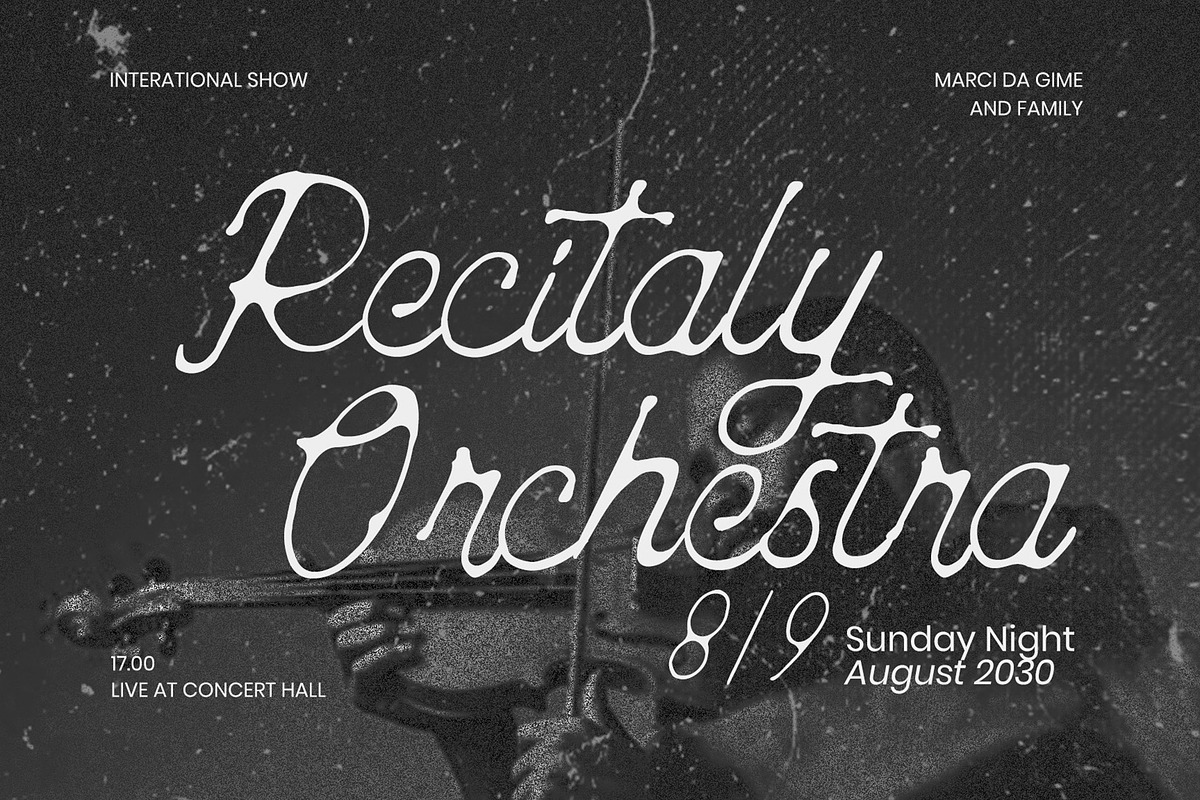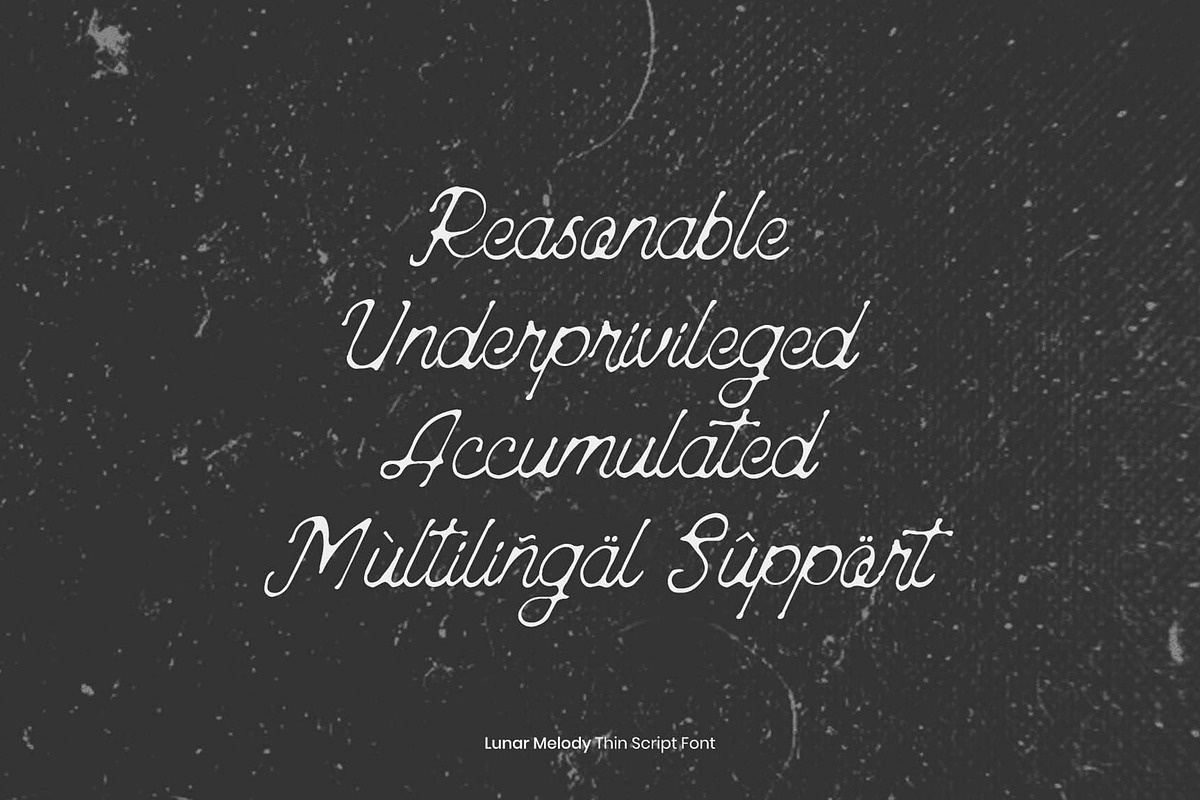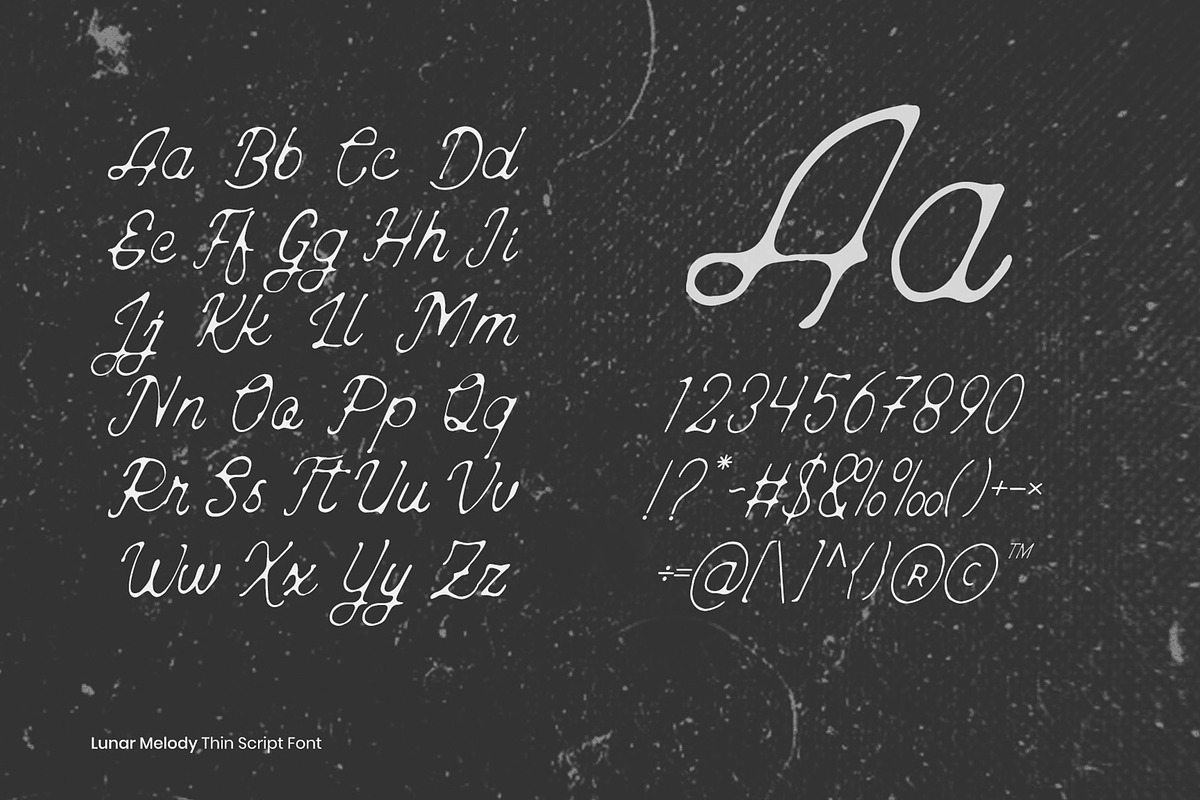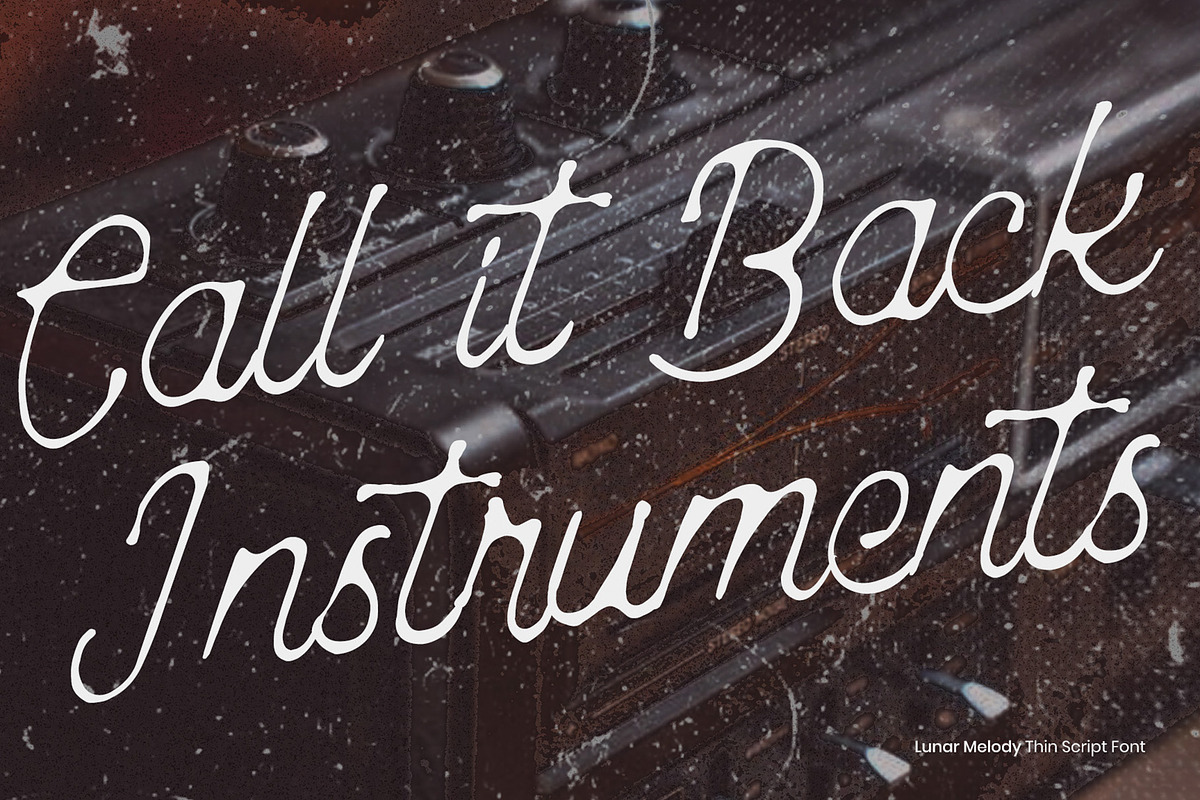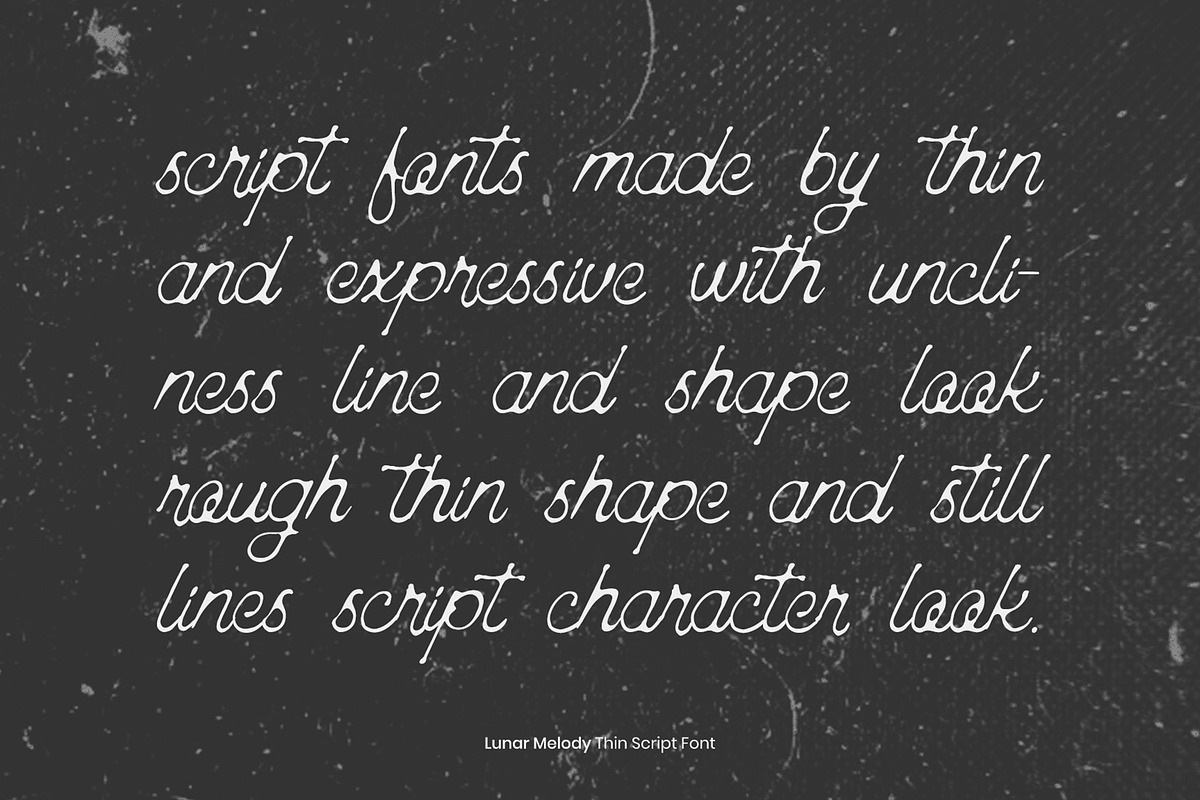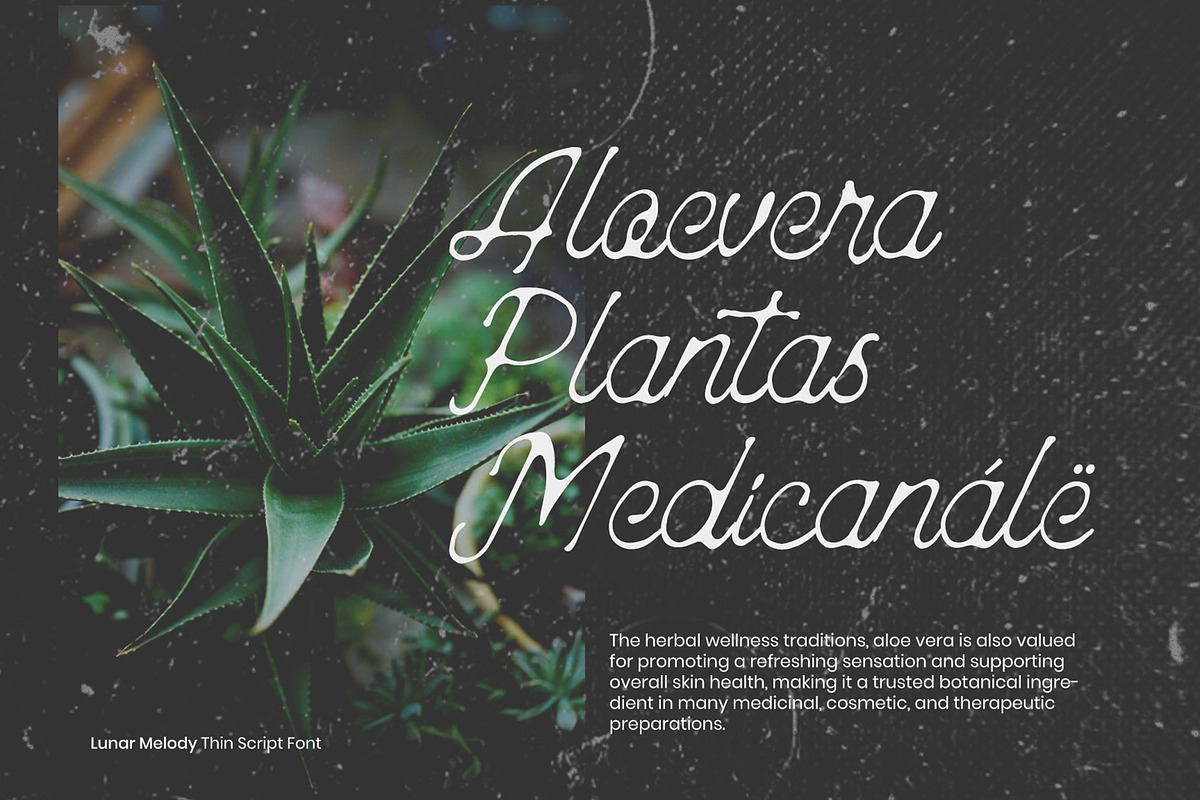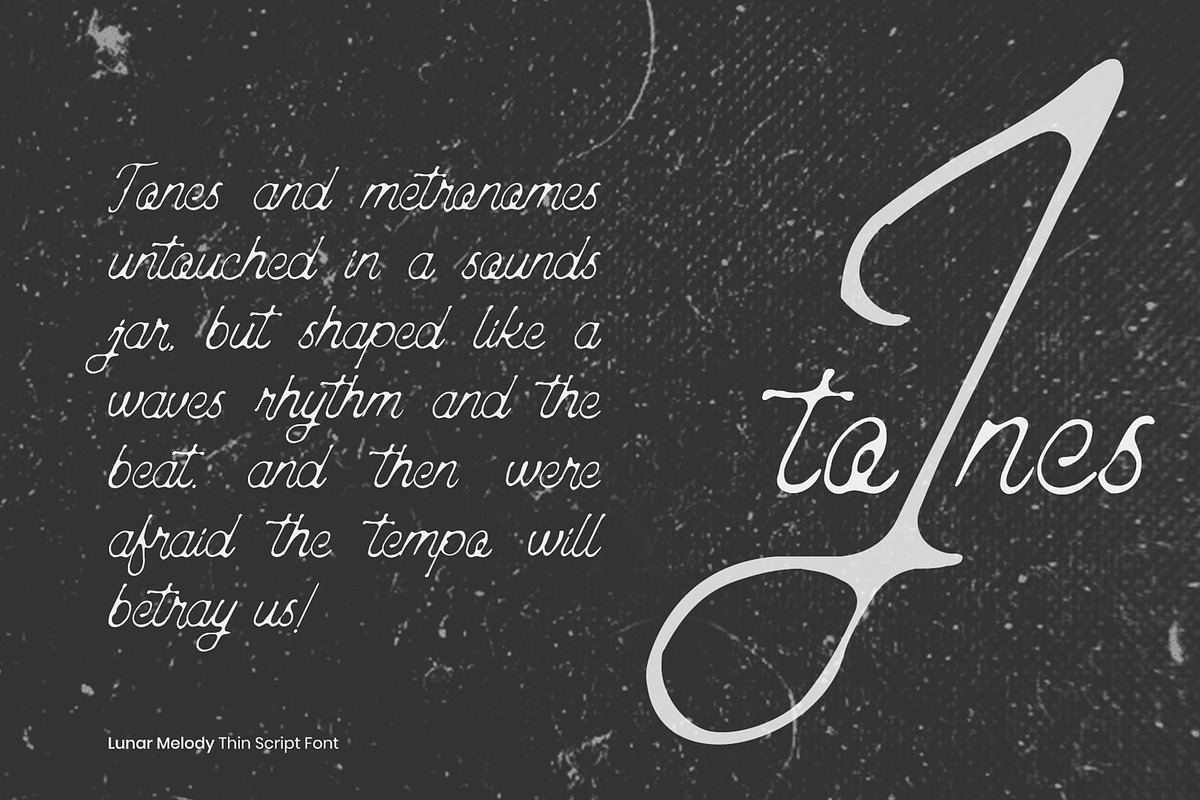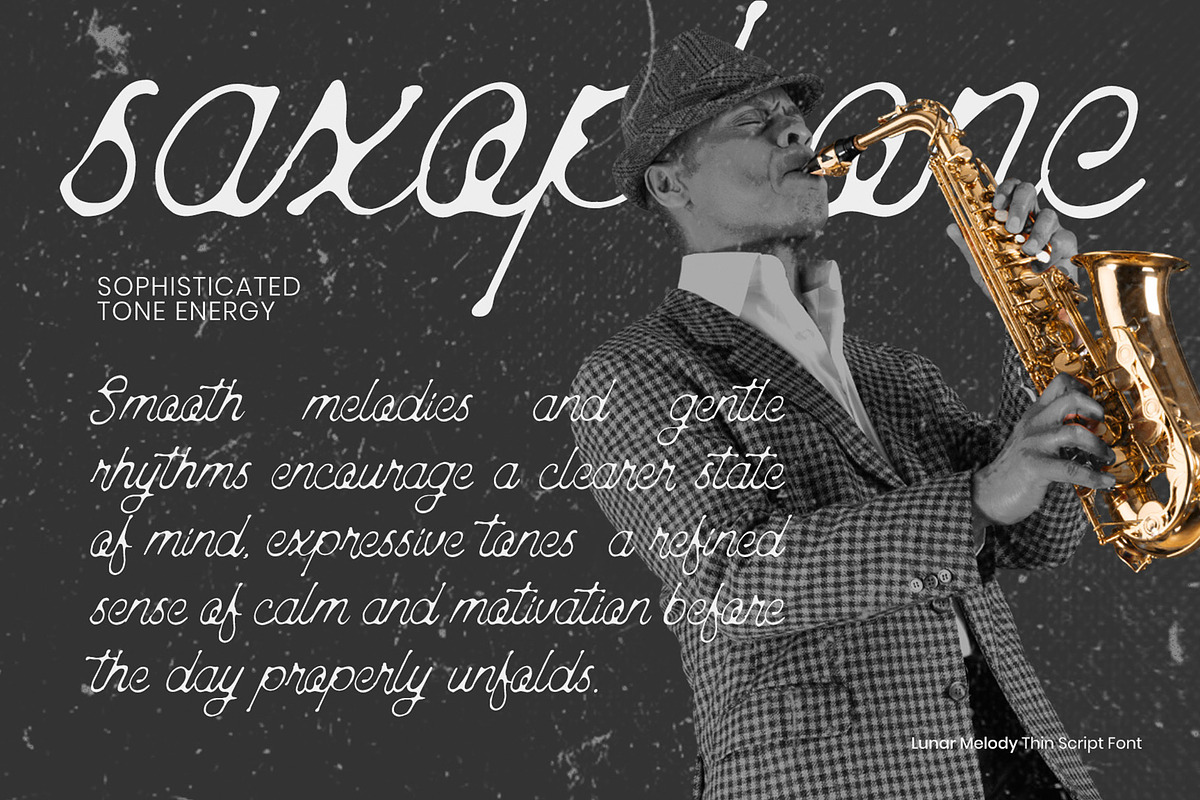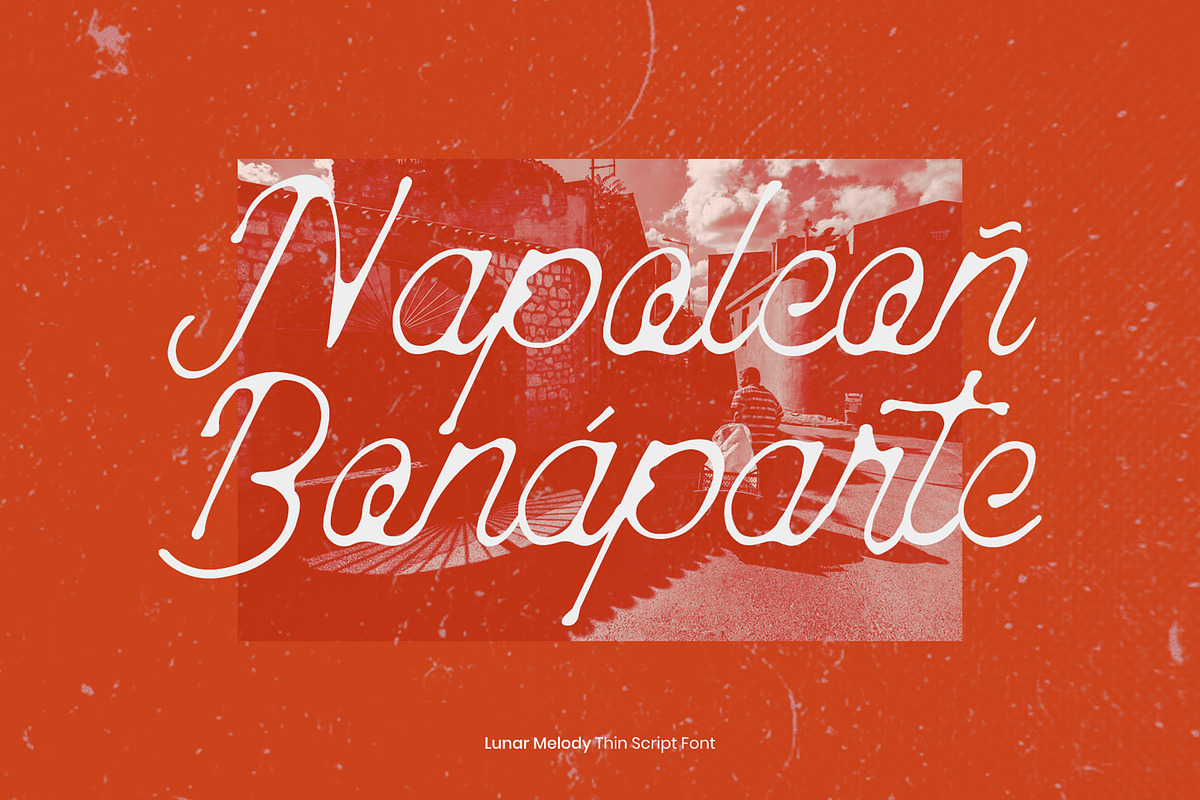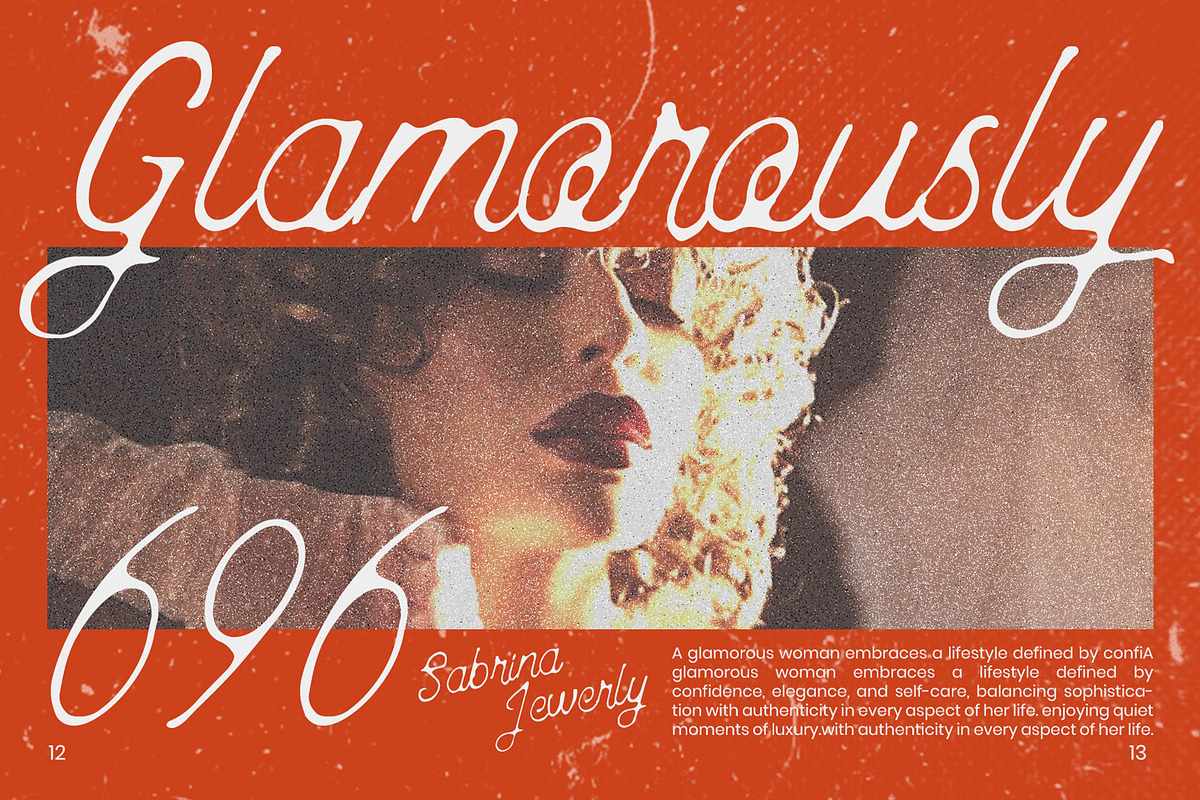
Lunar Melody
Lunar Melody a thin rough script font inspired by classic old-style handwriting and vintage lettering aesthetics. Created with graceful curves and naturally imperfect strokes and unique handcrafted appearance that feels both elegant and artistic, captures the beauty of authentic pen-written typography while maintaining a modern creative touch.
Lunar Melody perfect for a branding, feminine logos, wedding invitations, packaging, social media content, or editorial titles.